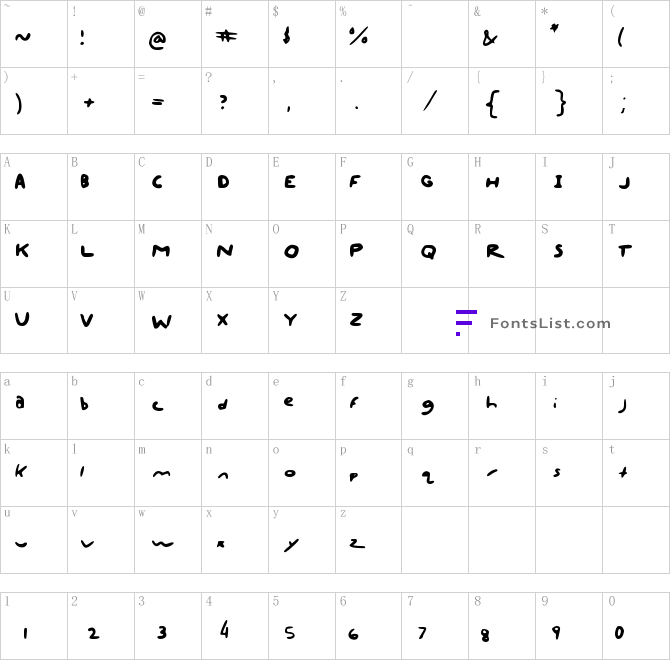
- Font Name:Apacaxi_Comic_
Apacaxi_Comic_-copy-1-.ttf is a very beautiful artistic font, Apacaxi_Comic_-copy-1-.ttf is widely used in the design and printing of various books and pictures,Apacaxi_Comic_-copy-1-.ttf has a strong visual impact,Apacaxi_Comic_-copy-1-.ttf is a commonly used font in newspapers, magazines and books, and is used in posters, e-commerce Poster design, store design, logo design, font design and other fields.Apacaxi_Comic_-copy-1-.